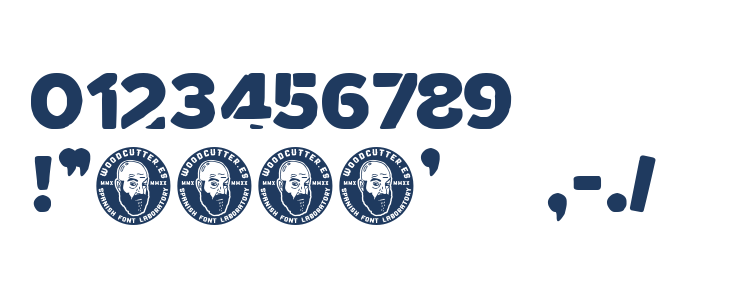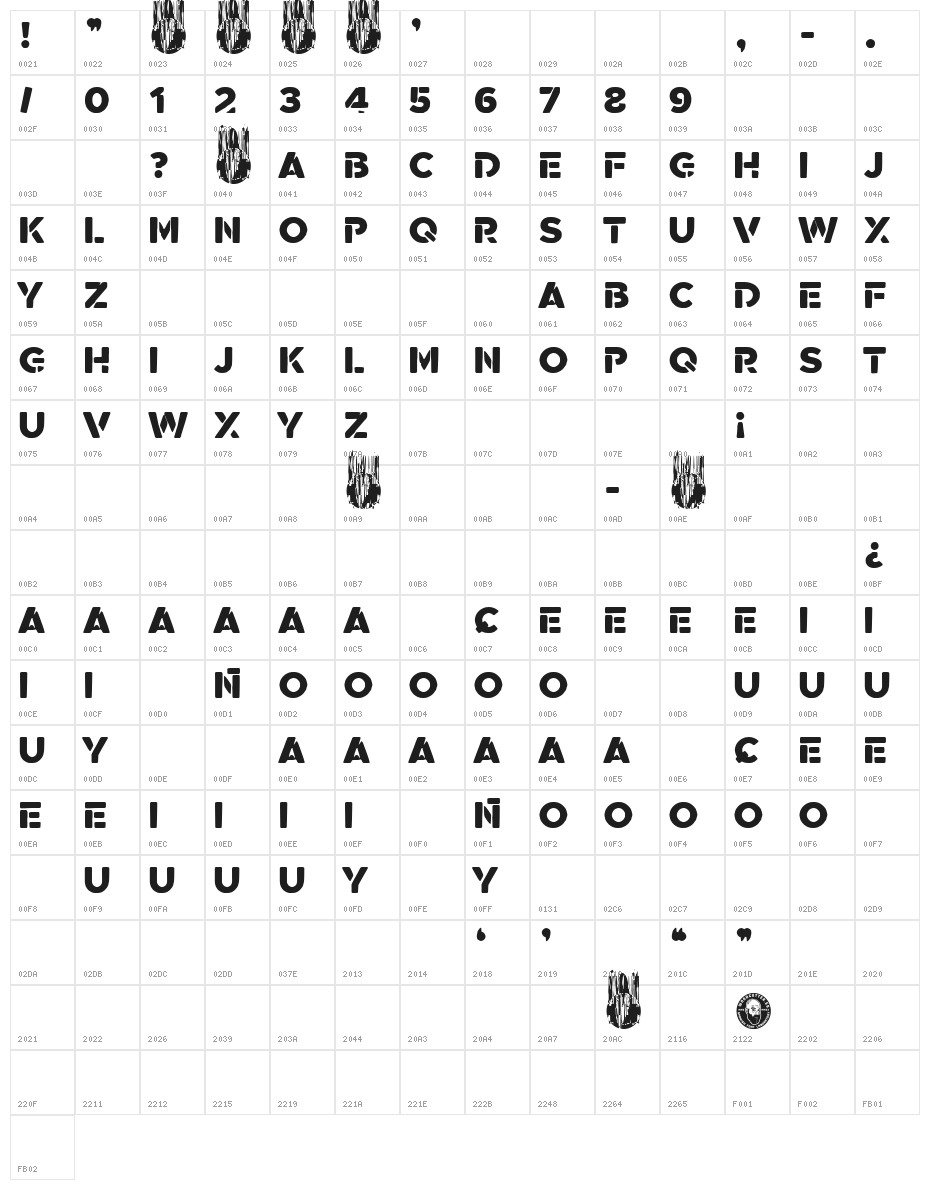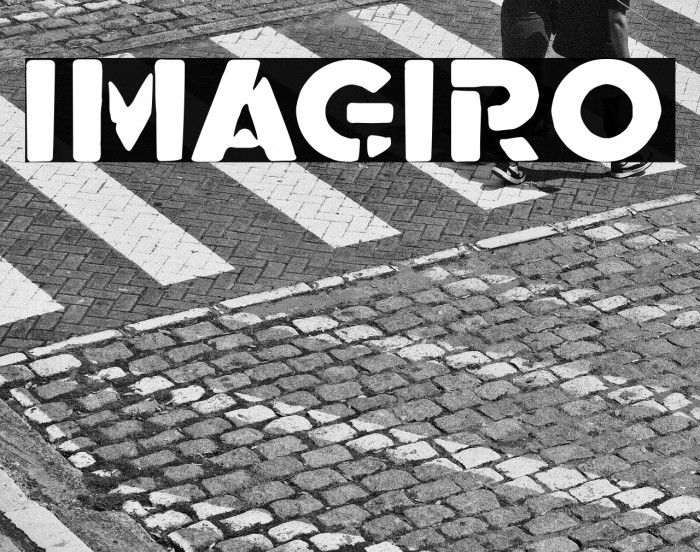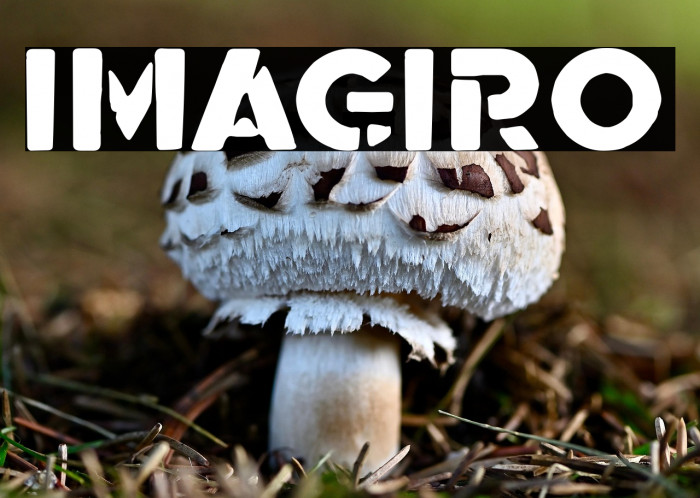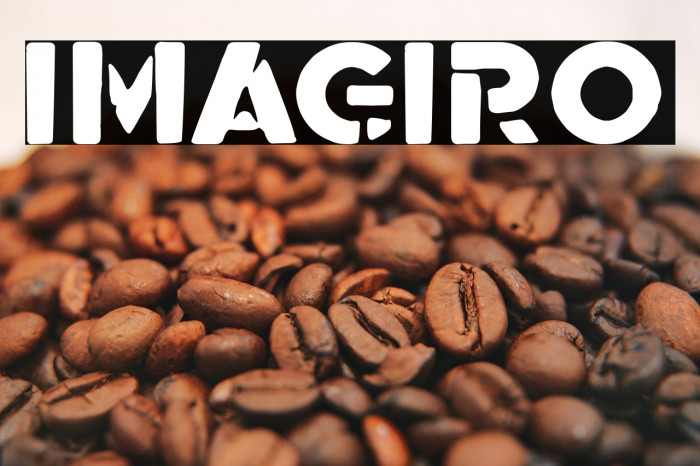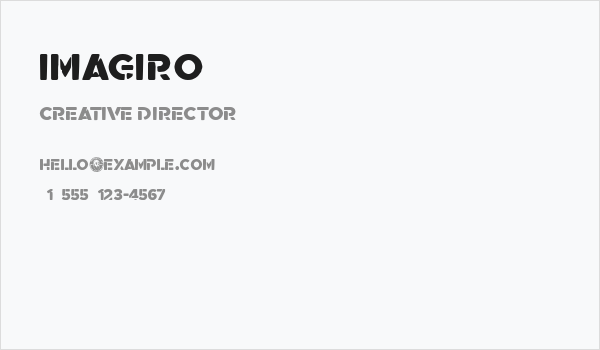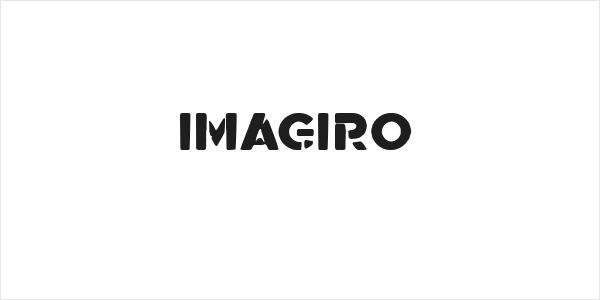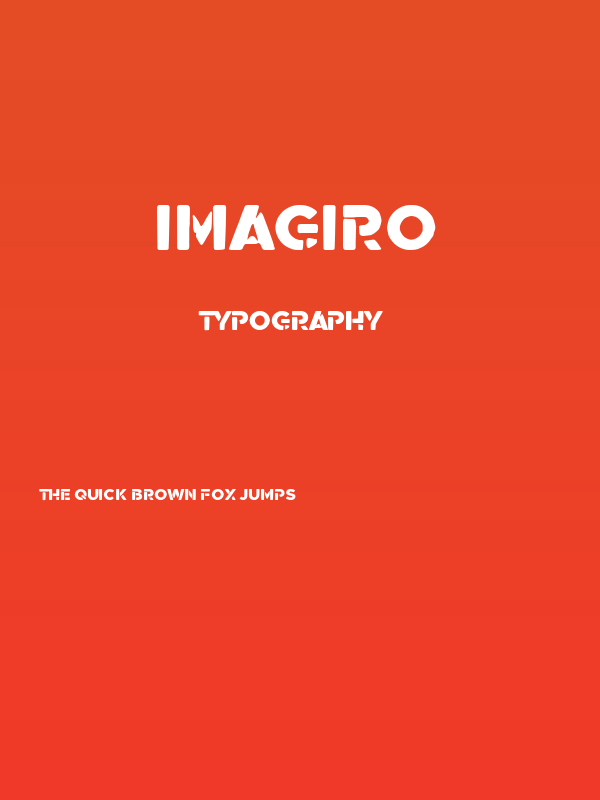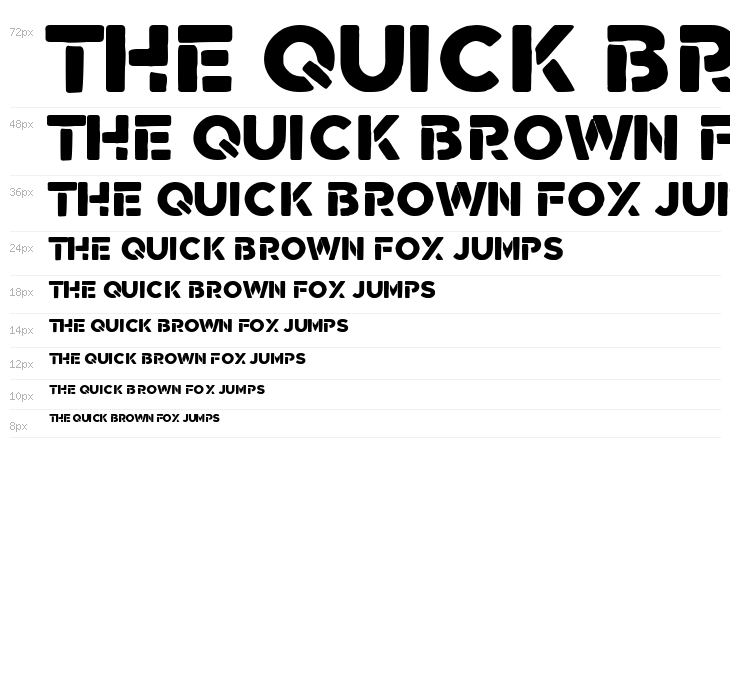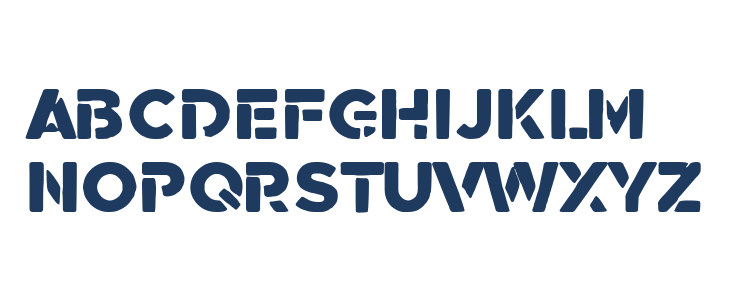
Imagiro Font
Imagiro Description
This font features a bold, geometric design with a stencil-like appearance. Each character is crafted with distinct cutouts, creating a modern and industrial feel. The uppercase letters are uniform in height, while the numbers and special characters maintain the same bold style. The font's unique design makes it stand out, with its sharp angles and clean lines. It is well-suited for projects that require a strong visual impact, such as branding or signage. The consistent thickness of the strokes ensures readability while adding a touch of creativity.
| Proposed Projects | Ideal for branding, signage, posters, and any project needing a strong visual impact. |